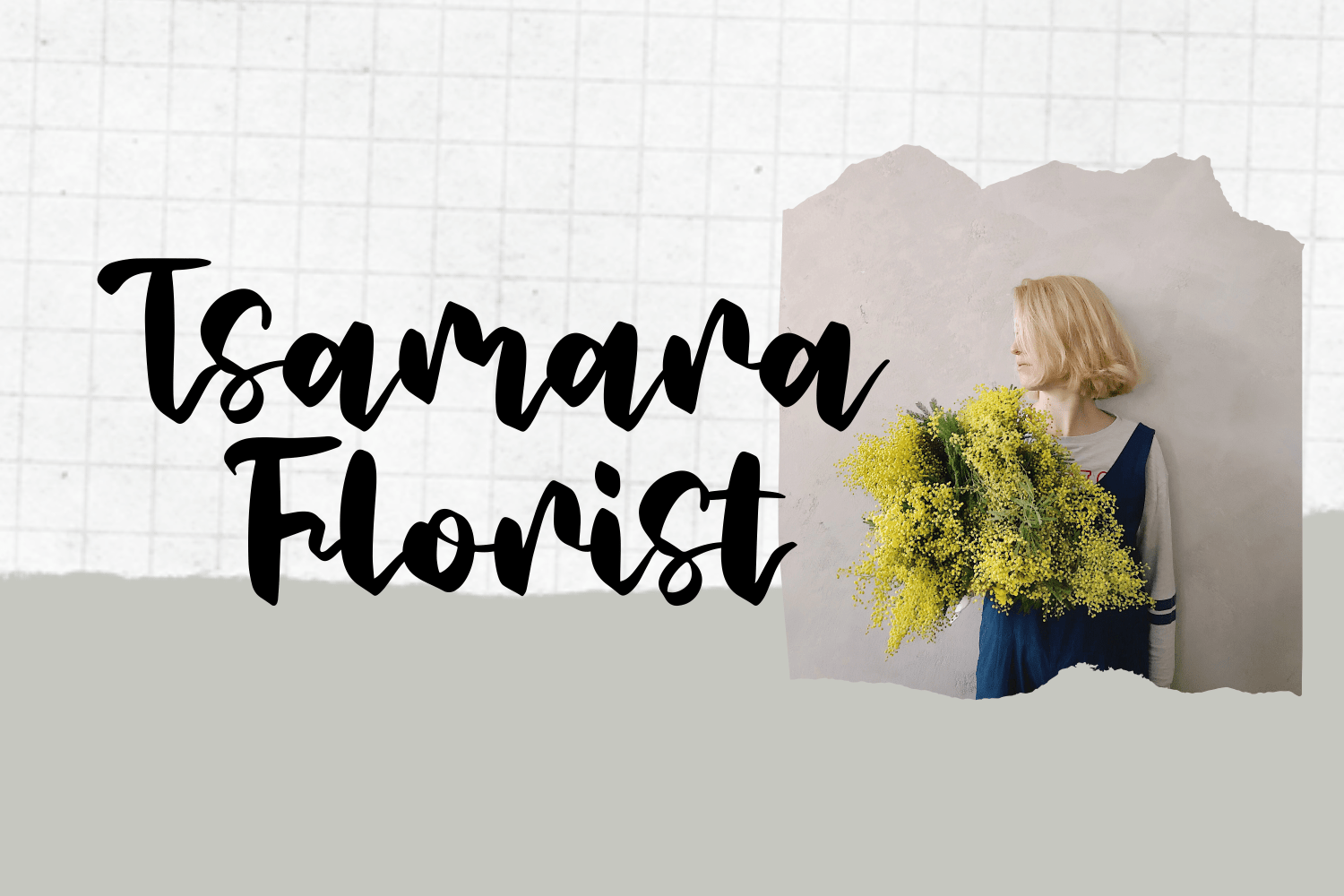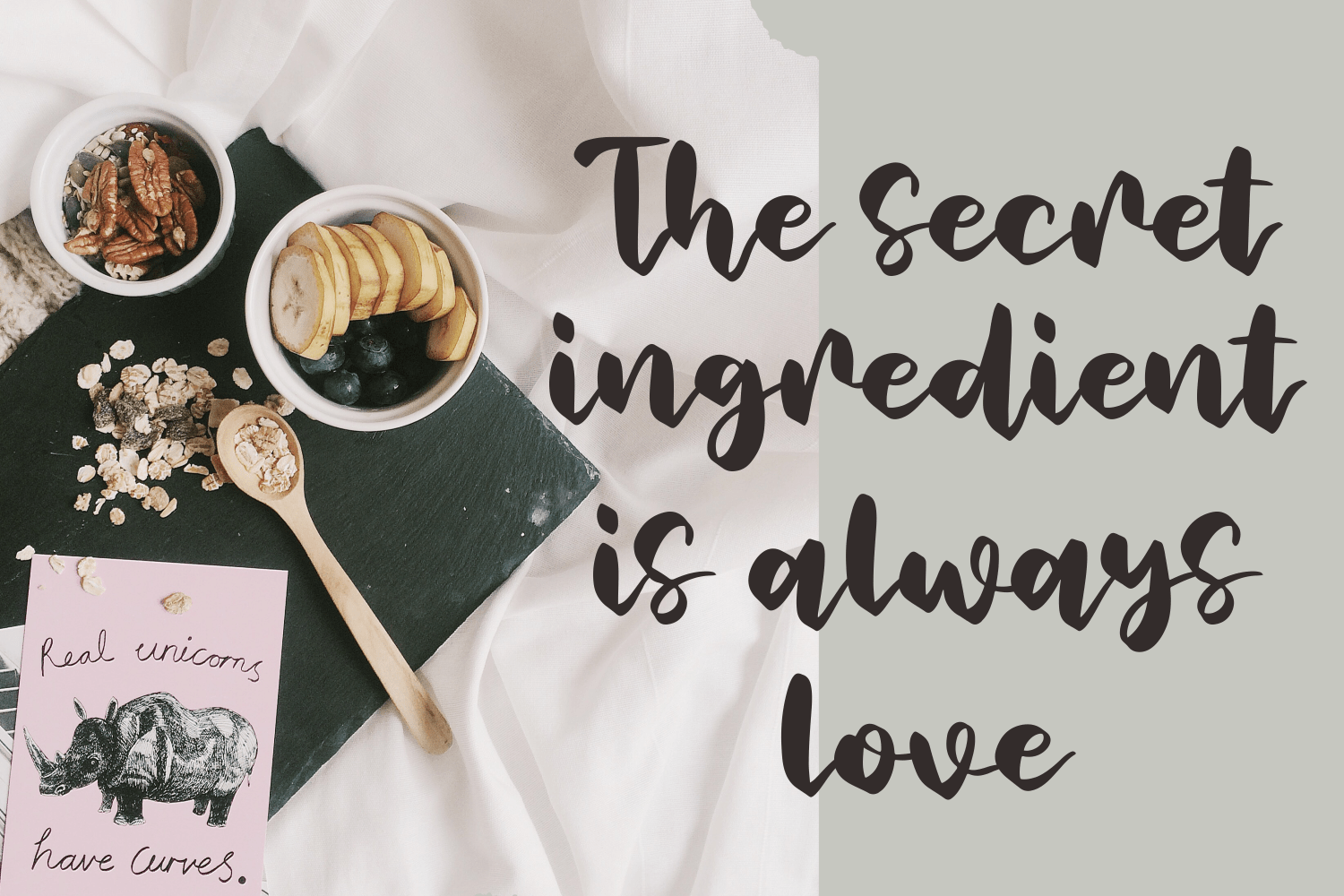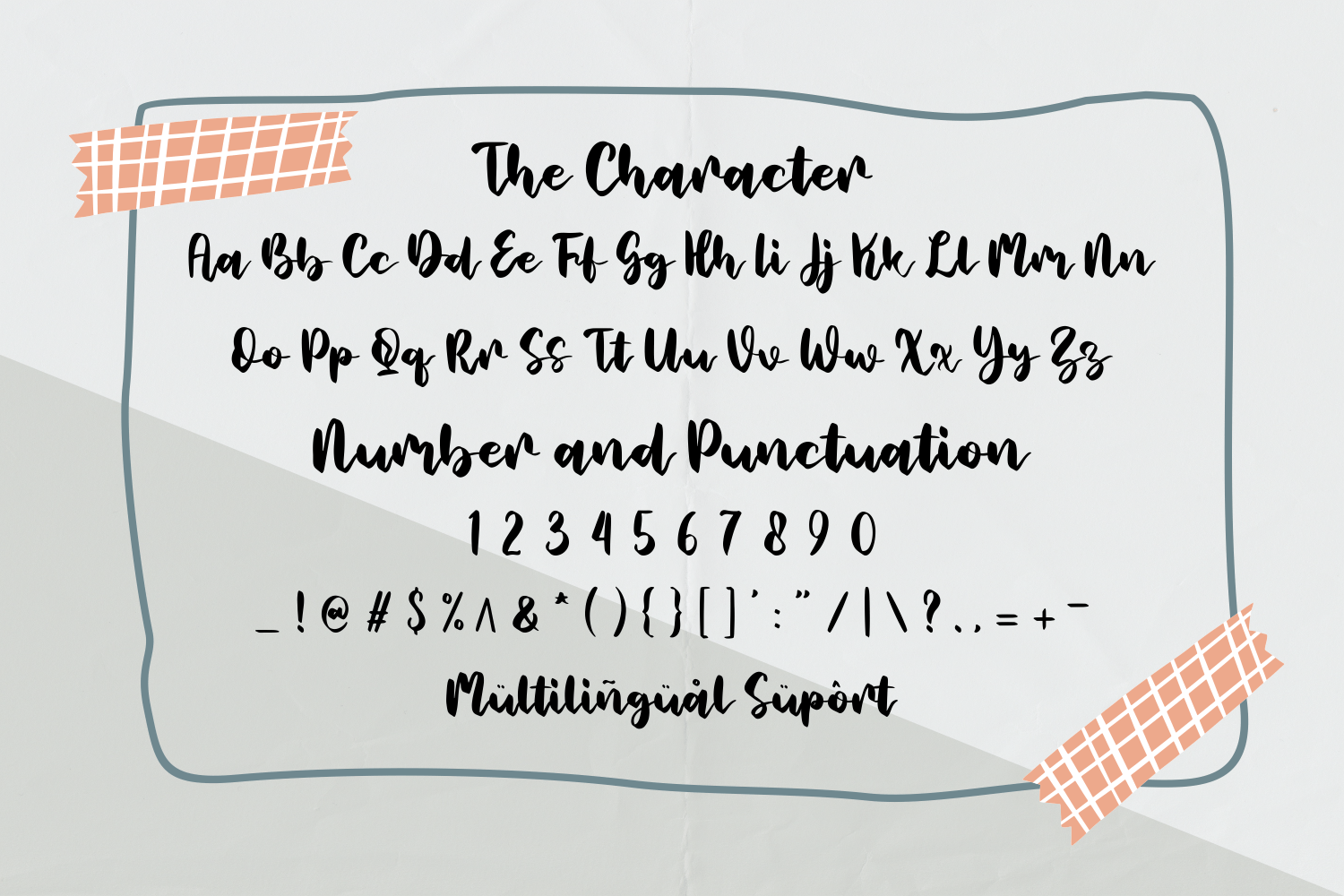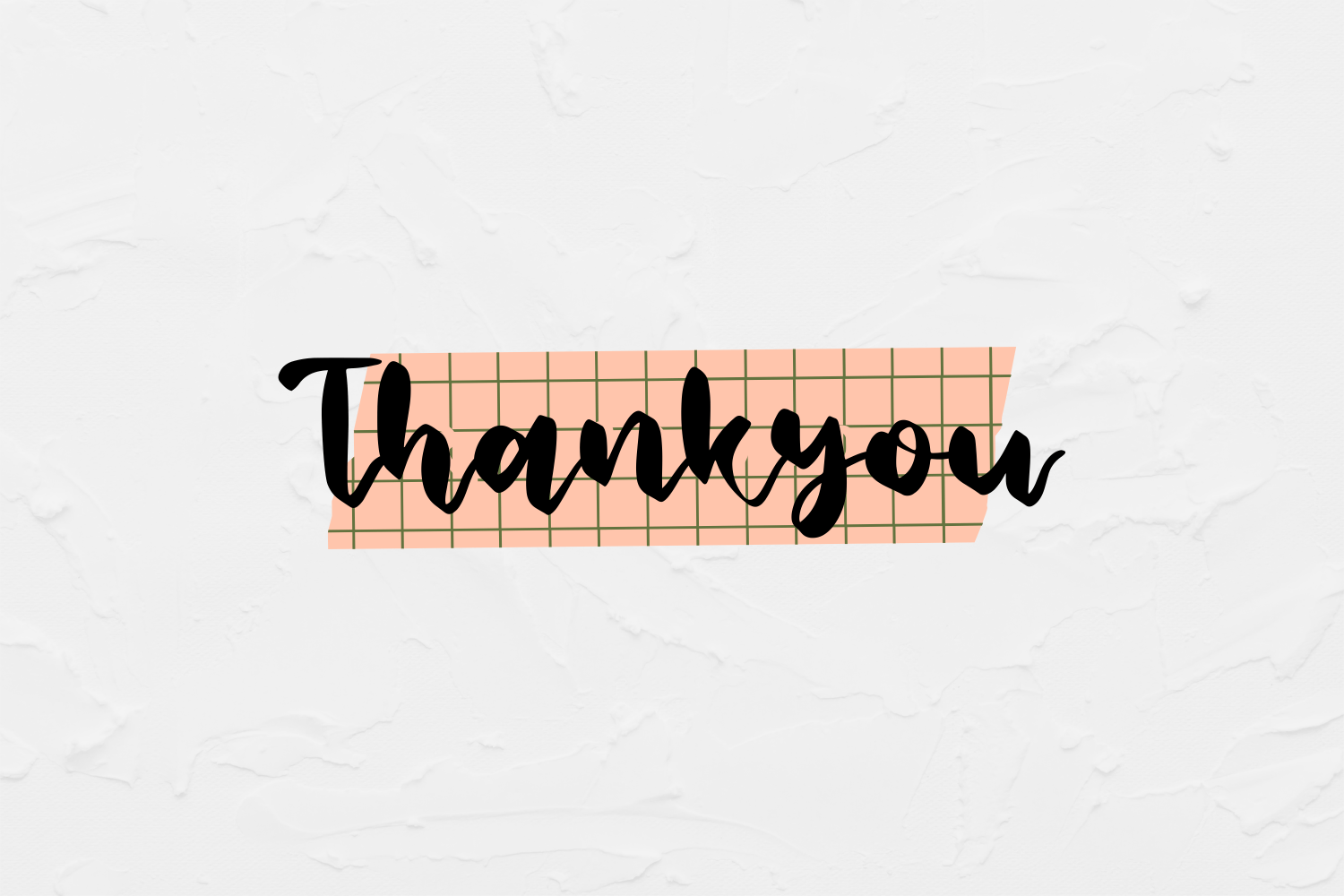
Sweet Rolling
Sweet Rolling Script Font is a delicate, trendy and casual handwritten font. It has beautiful and well balanced characters and as a result, it matches a wide pool of designs. Add it to your most creative ideas and notice how it makes them come alive!